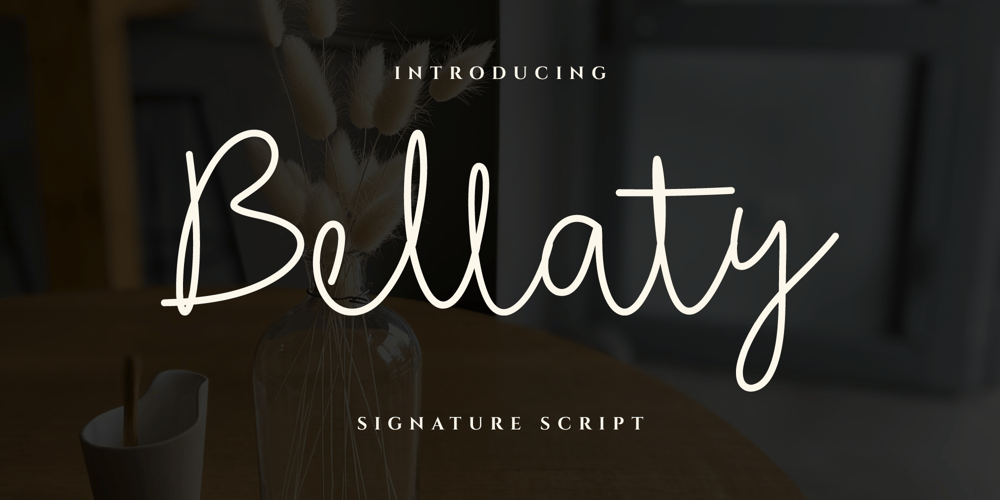
Bellaty
Bellaty font
Bellaty Font Family was designed by Iwan Alwan and published by Artiveko. Bellaty contains 2 styles and family package options. Bellaty, a signature script font meticulously crafted by Iwan Alwan.With its elegant strokes and graceful curves, Bellaty exudes sophistication, making it perfect for fashion, boutiques, and cosmetics. Its inherently feminine design lends itself well to various applications, from branding to promotional materials.Whether adorning product packaging or enhancing website aesthetics, Bellaty adds a touch of charm and allure to any setting. Elevate your brand presence with the timeless beauty of Bellaty.